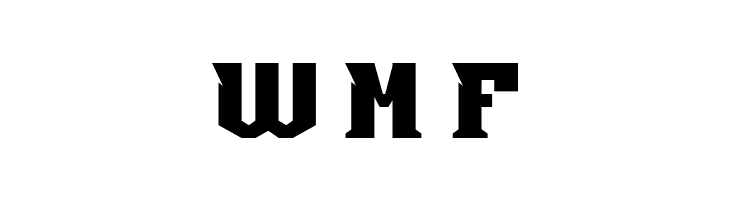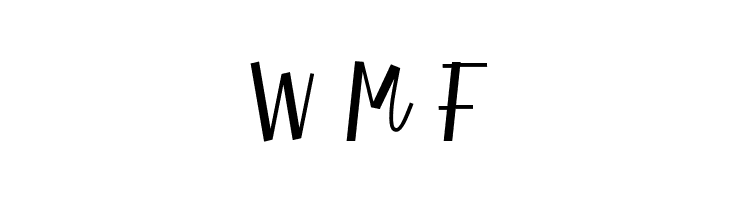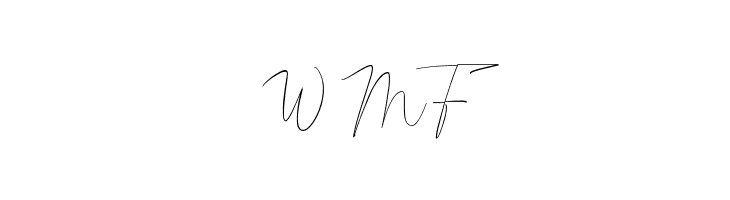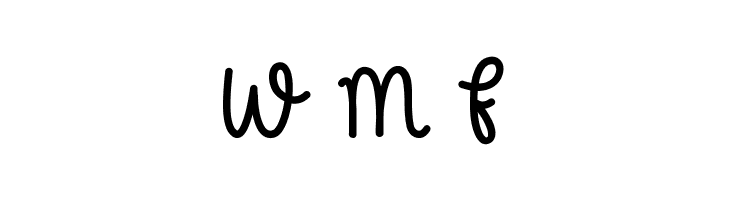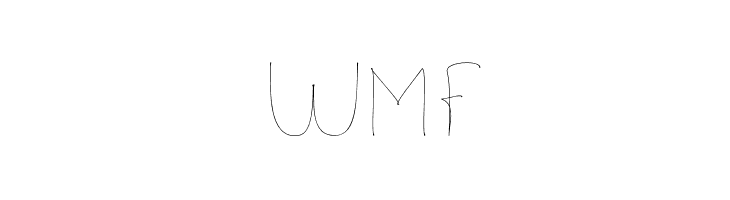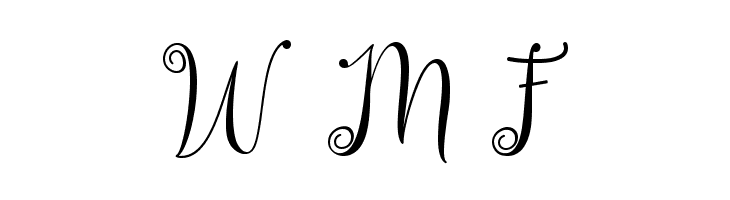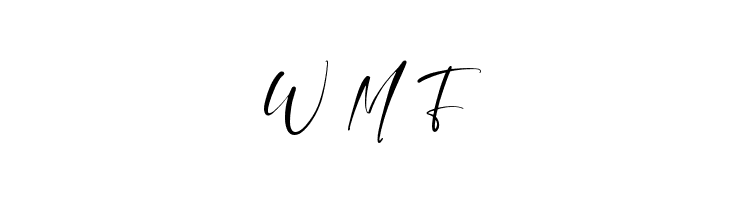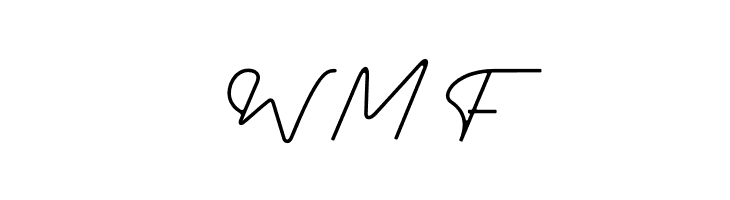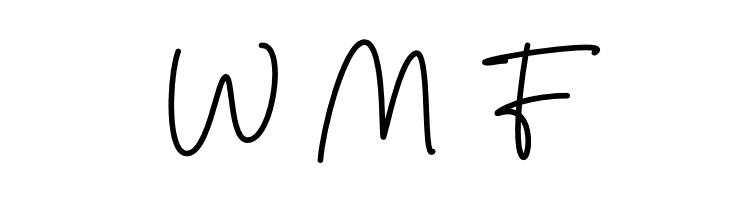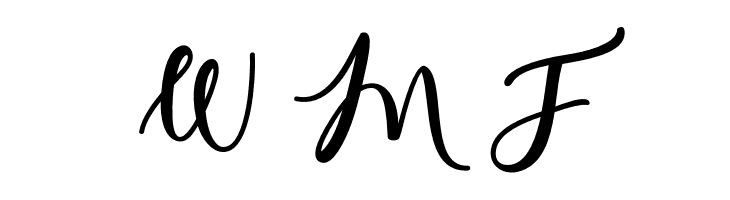
A flowing, cursive font with elegant curves and a modern, handwritten style.
A playful, handwritten font with smooth, flowing curves and a casual style.
An elegant script font with flowing, interconnected letters and decorative flourishes.
An elegant script font with flowing, interconnected letters and ornate flourishes.
A bold, lively script font with fluid, natural handwriting style.
A bold, geometric font with a vintage, blocky style.
A delicate, elegant script font with flowing, interconnected characters.
A playful, textured handwritten font with a casual, dynamic style.
A lively, dynamic handwritten font with fluid, interconnected strokes.
A dynamic handwritten font with fluid strokes and a playful, elegant flair.
A bold, geometric font with a futuristic and modern design.
A playful and flowing script font with elegant, cursive strokes.
A playful, handwritten font with dynamic strokes and a lively appearance.
A whimsical, artistic font with elongated strokes and playful design.
A decorative font with geometric and artistic elements, blending modern and vintage styles.
A fluid and graceful script font with sweeping curves and delicate strokes.
A modern, elegant script font with a fluid, handwritten style.
An elegant, flowing script font with a handwritten style.
A delicate and flowing script font with elegant, elongated letterforms.
A bold, playful script font with flowing, interconnected strokes.
A graceful and elegant script font with flowing, cursive letters.
An elegant, flowing script font with graceful loops and swirls.
A flowing, cursive script font with elegant curves and loops.
A playful and elegant script font with flowing, cursive letterforms.
An elegant and flowing script font with intricate loops and swirls.
An elegant, whimsical script font with decorative swirls and loops.
A playful and dynamic font blending script and sans-serif styles.
A dynamic and elegant script font with a flowing, italic style.
A flowing, cursive script font with elegant, connected strokes.
A playful, hand-drawn font with uneven strokes and a whimsical feel.
A modern, clean font with smooth curves and rounded elements.
A stylish and elegant script font with fluid, connected letterforms.
A fluid and elegant script font with smooth, flowing lines.
An elegant and flowing script font with intricate flourishes.
An elegant, flowing script font with a handwritten style.